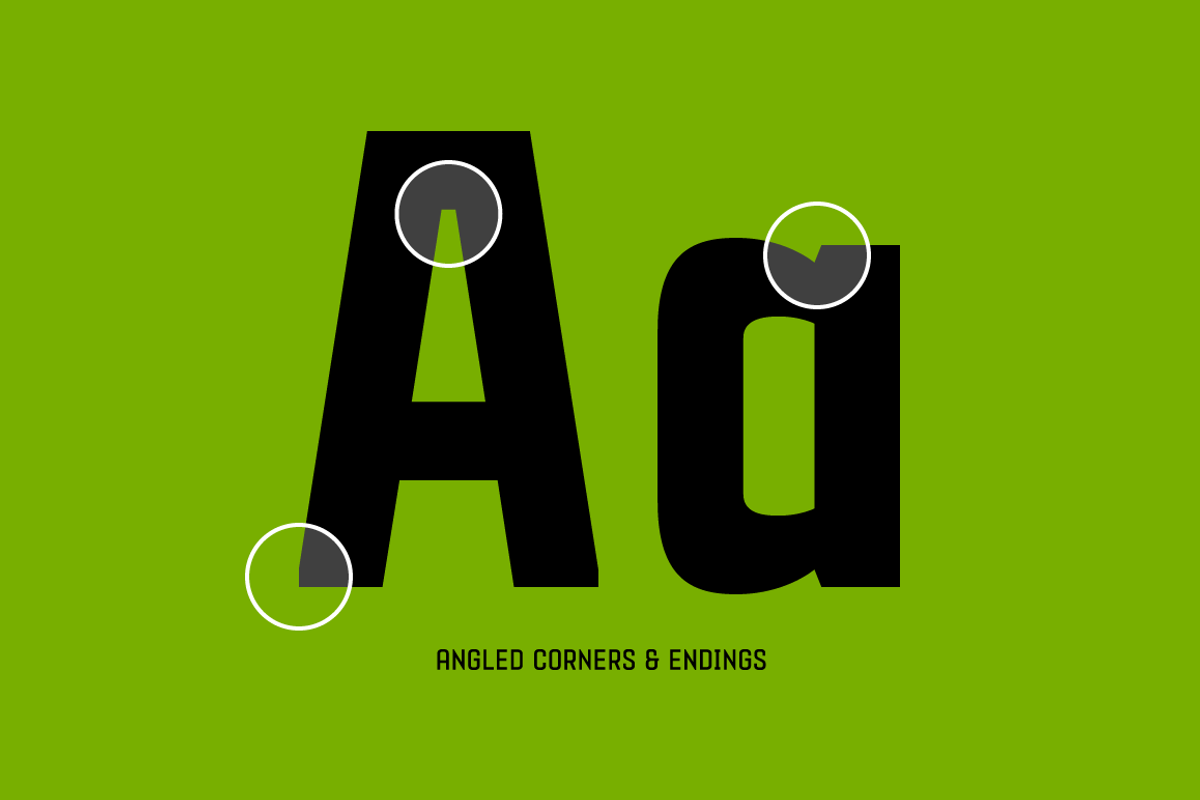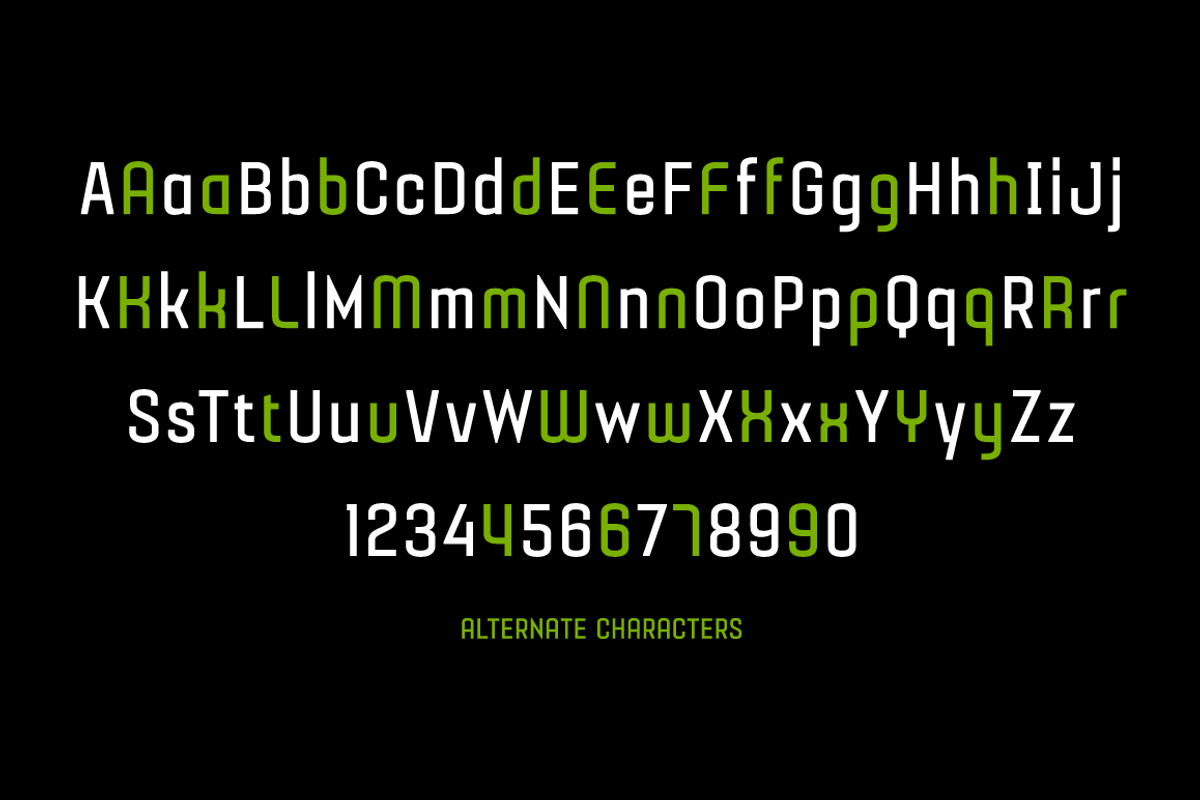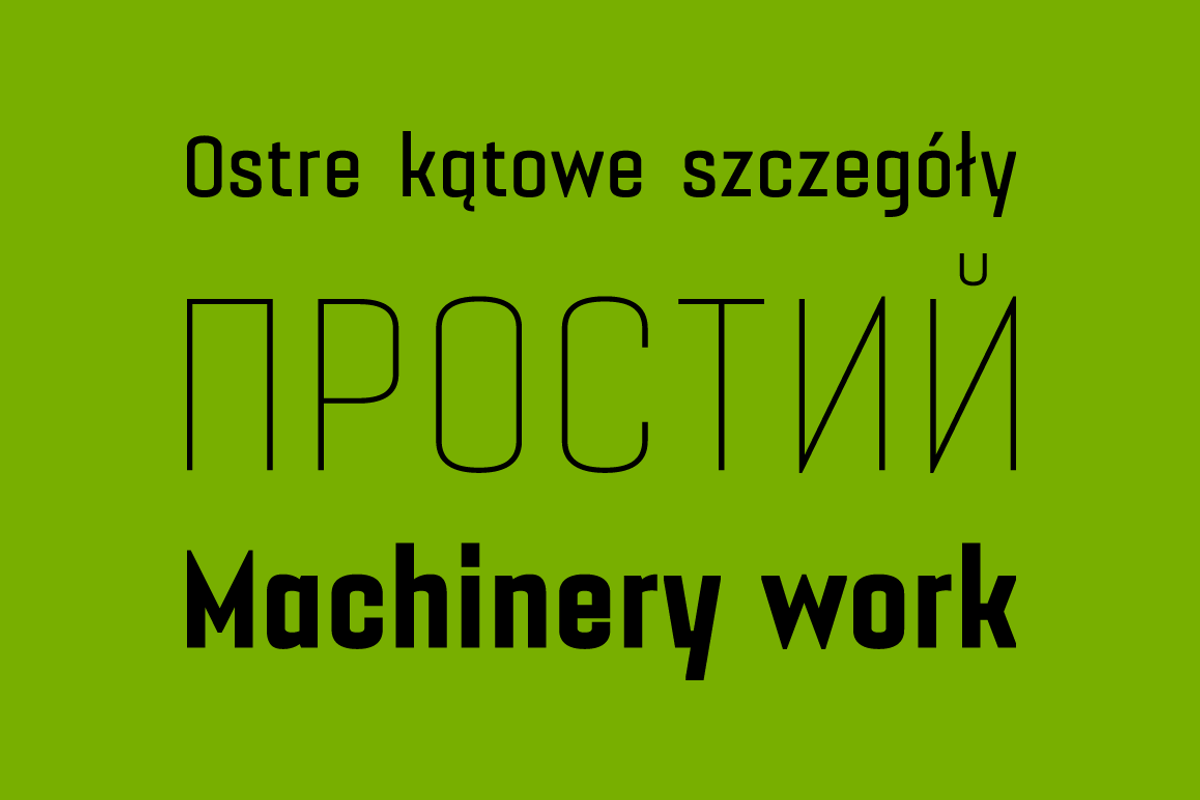
Gubia Font Family
Gubia Font Family by Graviton Font Foundry is a font selected for branding, posters, packaging, typography.
- The standard styles give texts a classic appearence while alternate styles give texts a playfull one.
- Gubia consists of 8 styles, 4 weights plus alternates, each containing small caps and glyph coverage for several languages.
Why Gubia Font Family is worth a look
Gubia Font Family by Graviton Font Foundry fits naturally into Branding, posters, packaging, typography.